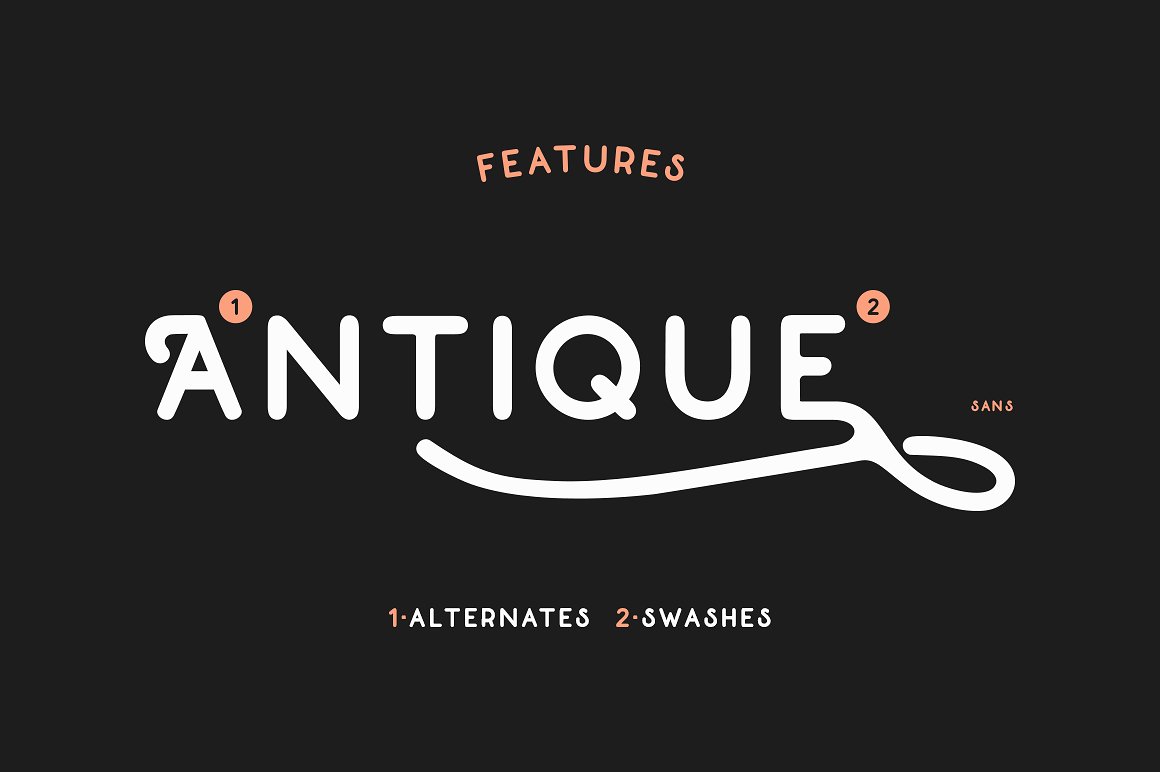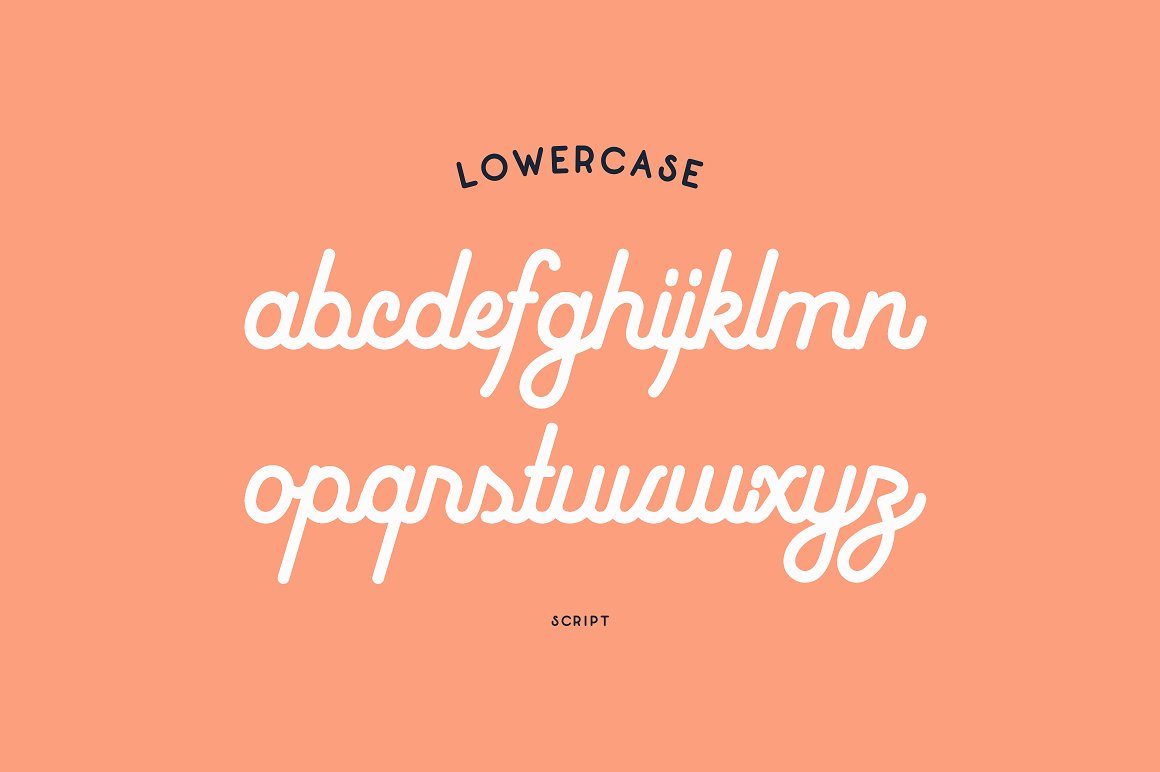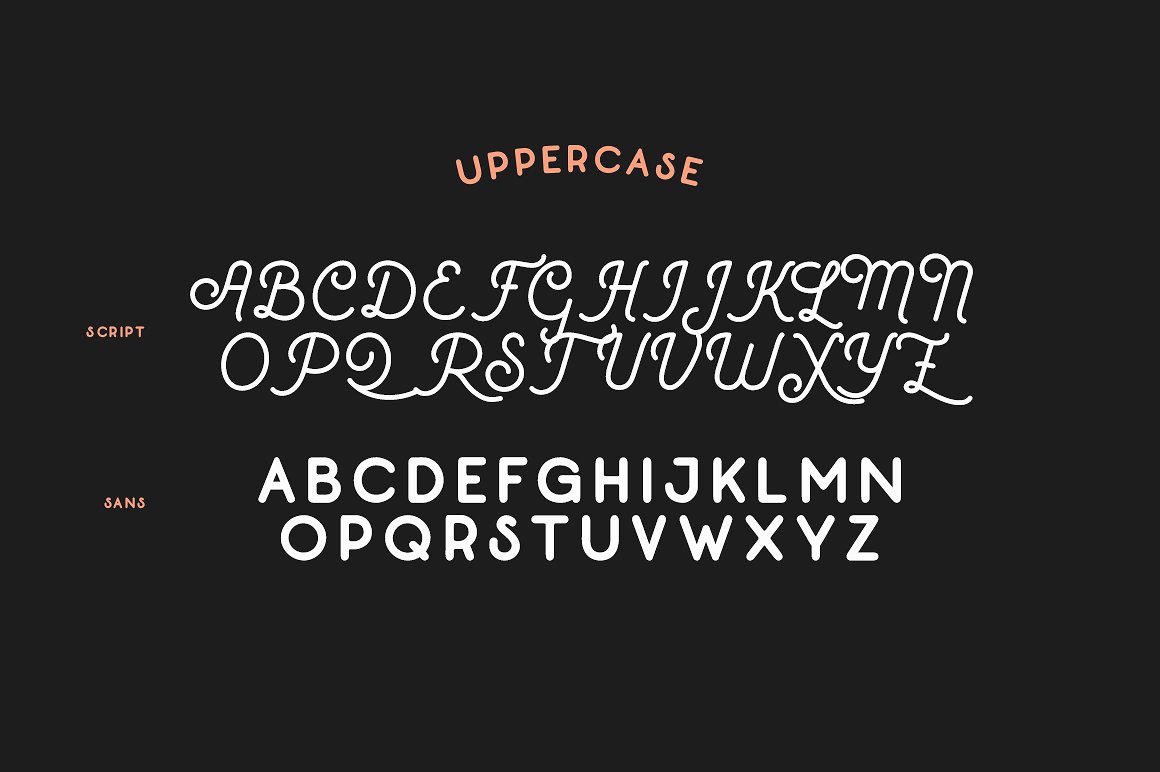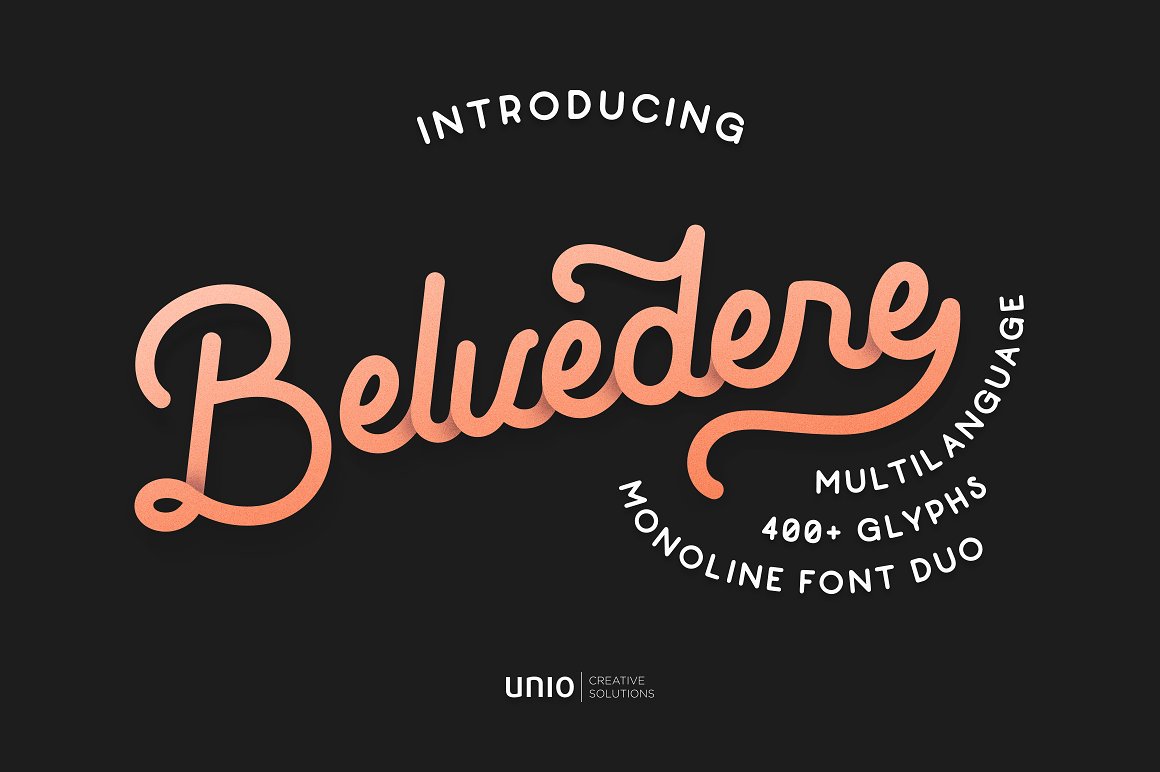
Belvedere Font Duo
Introducing Belvedere Font. “Belvedere” is a mono-line font duo which has been inspired by the typography style of two important decades, the never outdated 40’s and 50’s. This vintage font family is composed by a mono weight cursive script and a complementary sans-serif. All the characters have been designed to enhance the overall smoothness, which is undoubtedly useful to maximize the readability.